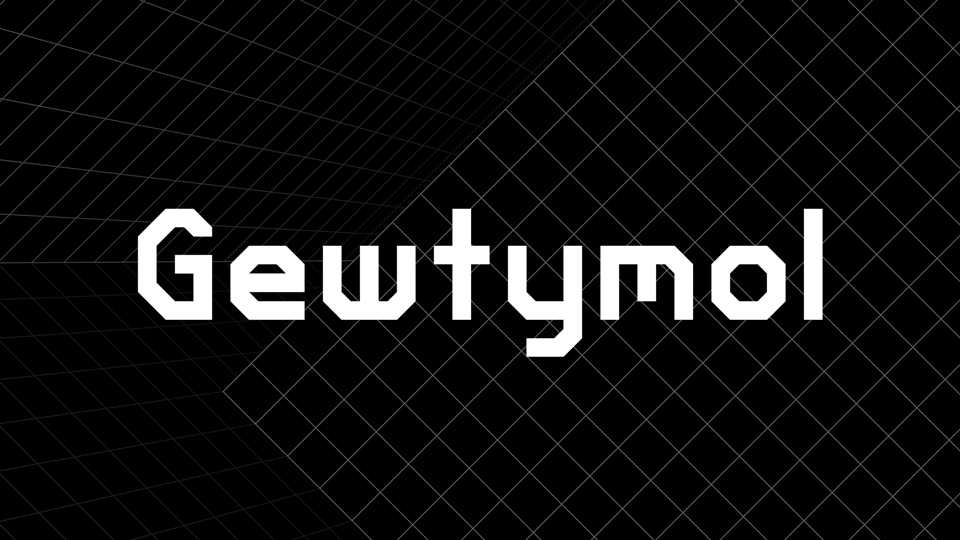
Download Gewtymol font, an angular geometric display typeface inspired by old-school computer graphic fonts. Gewtymol font is perfect for projects relating to the tech industry, the gaming world, and nostalgic work from the late 20th century.
Designer: Bryndan W. Meyerholt